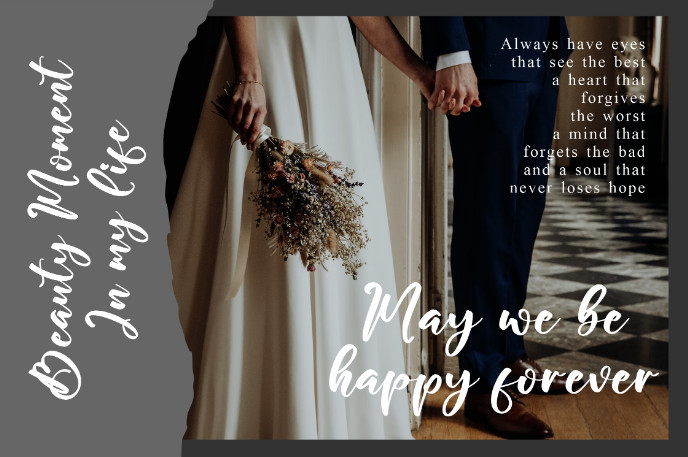
Lophetan Glokity Font
Lophetan Glokity – Handwritten Signature Font , from Glorytype Studio, suitable for any projects such as: logos, branding projects, homeware designs, product packaging, mugs, quotes, posters, shopping bags, t-shirts, book covers, name card, invitation cards, greeting cards, label, photography, watermark, special events, and all your other lovely projects that need a beautiful script taste.